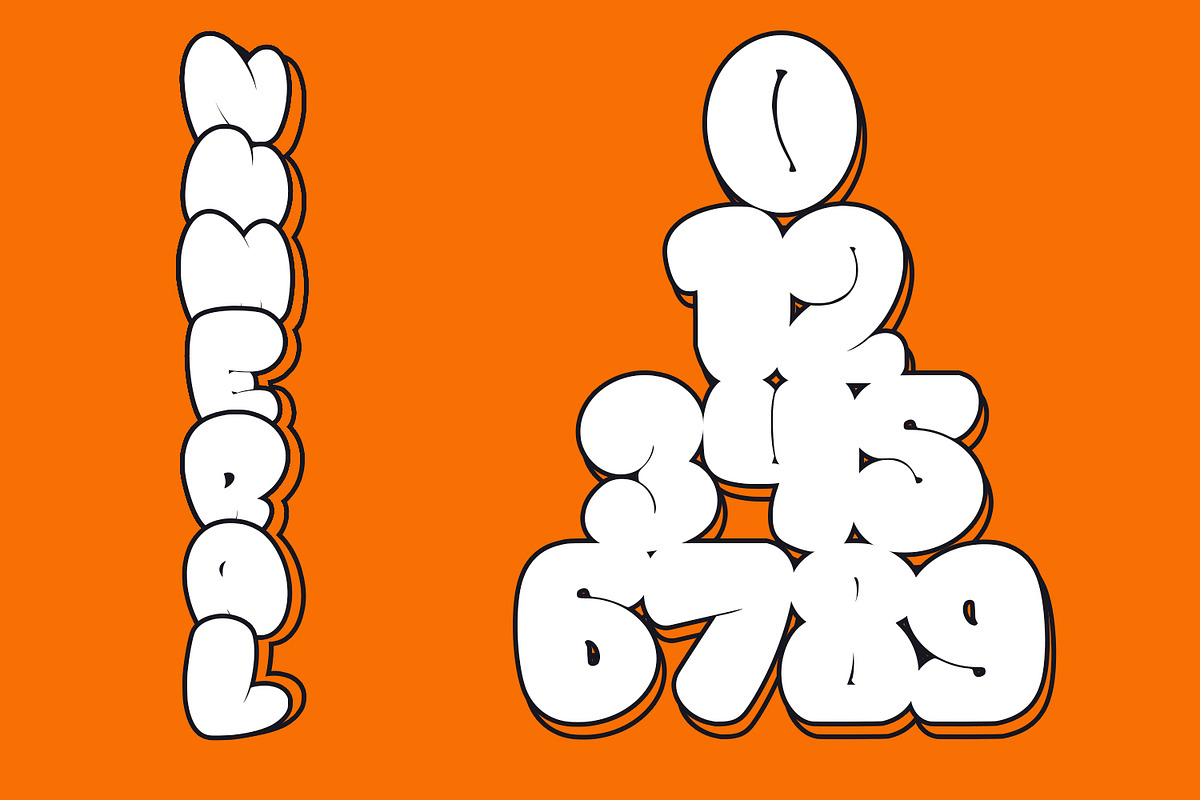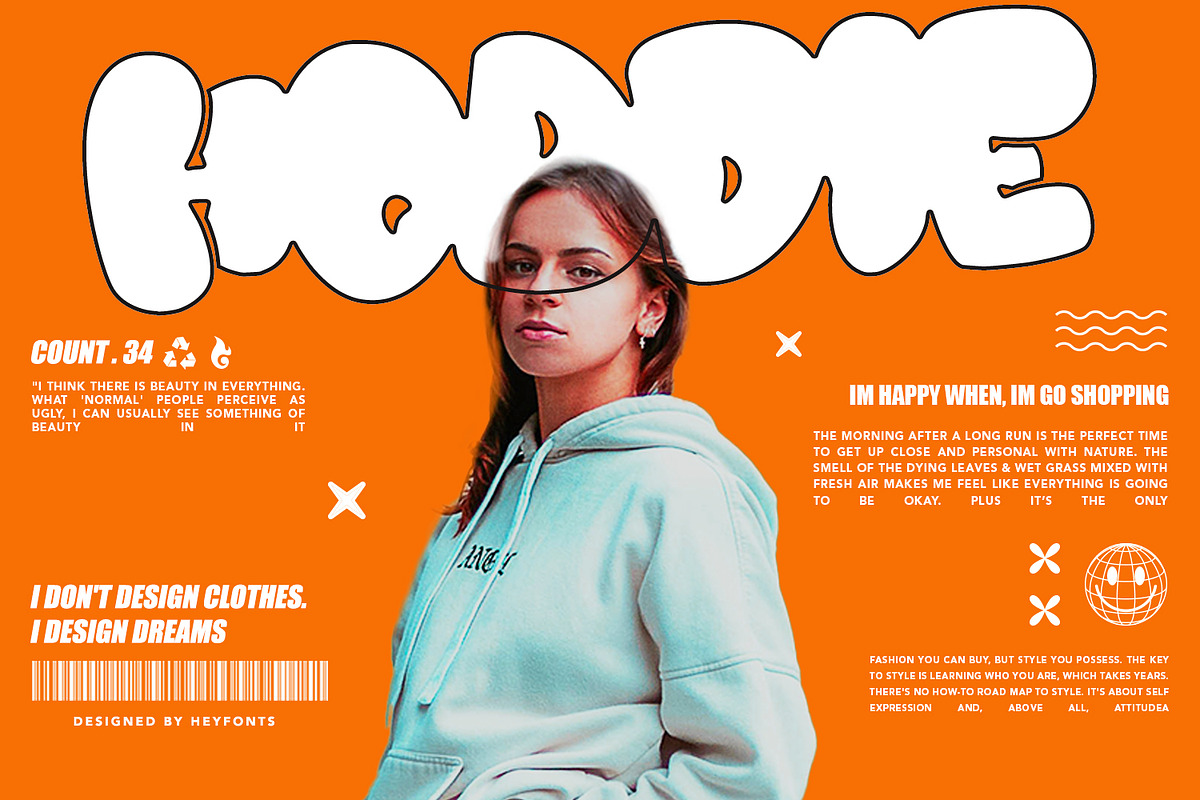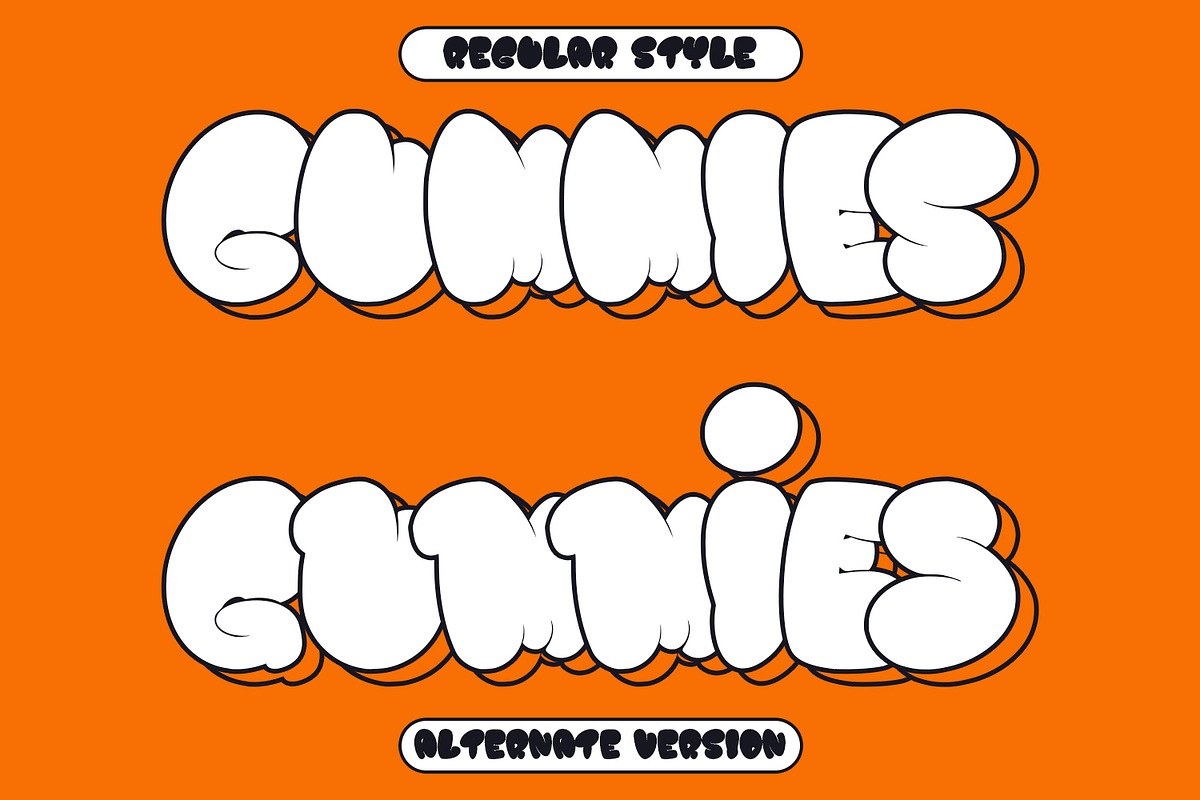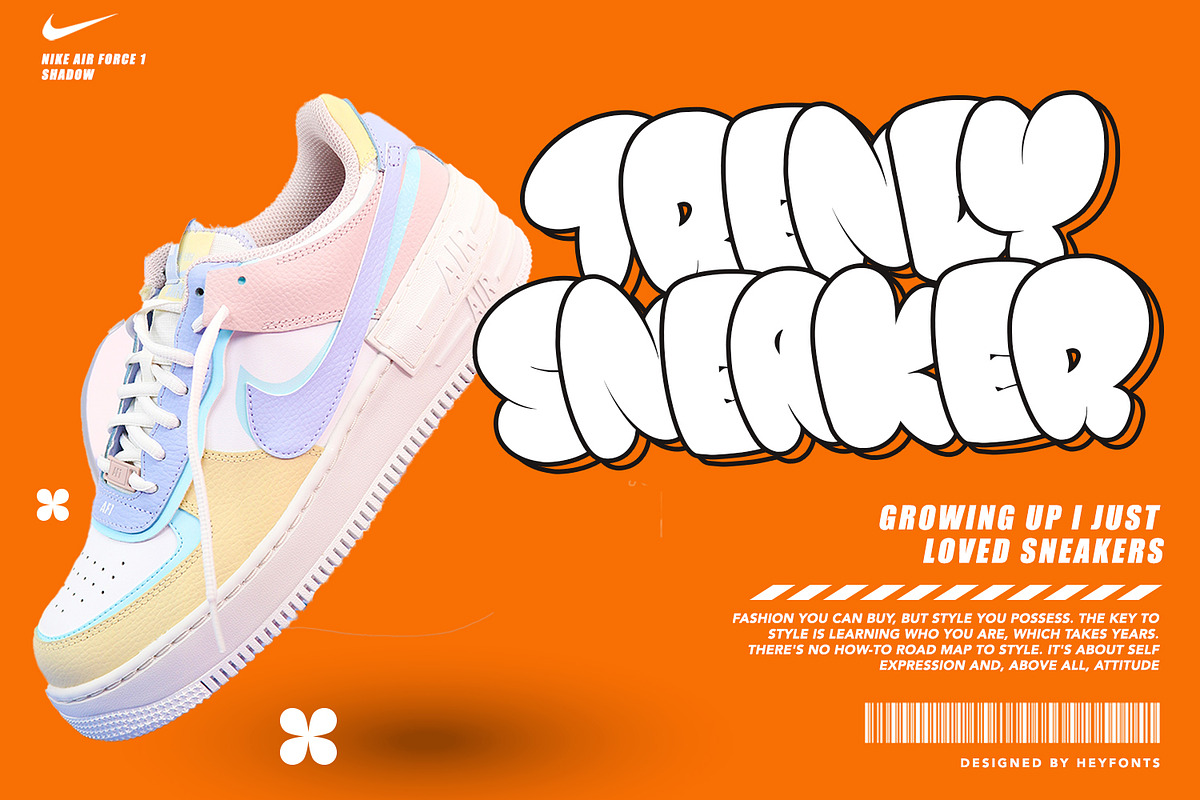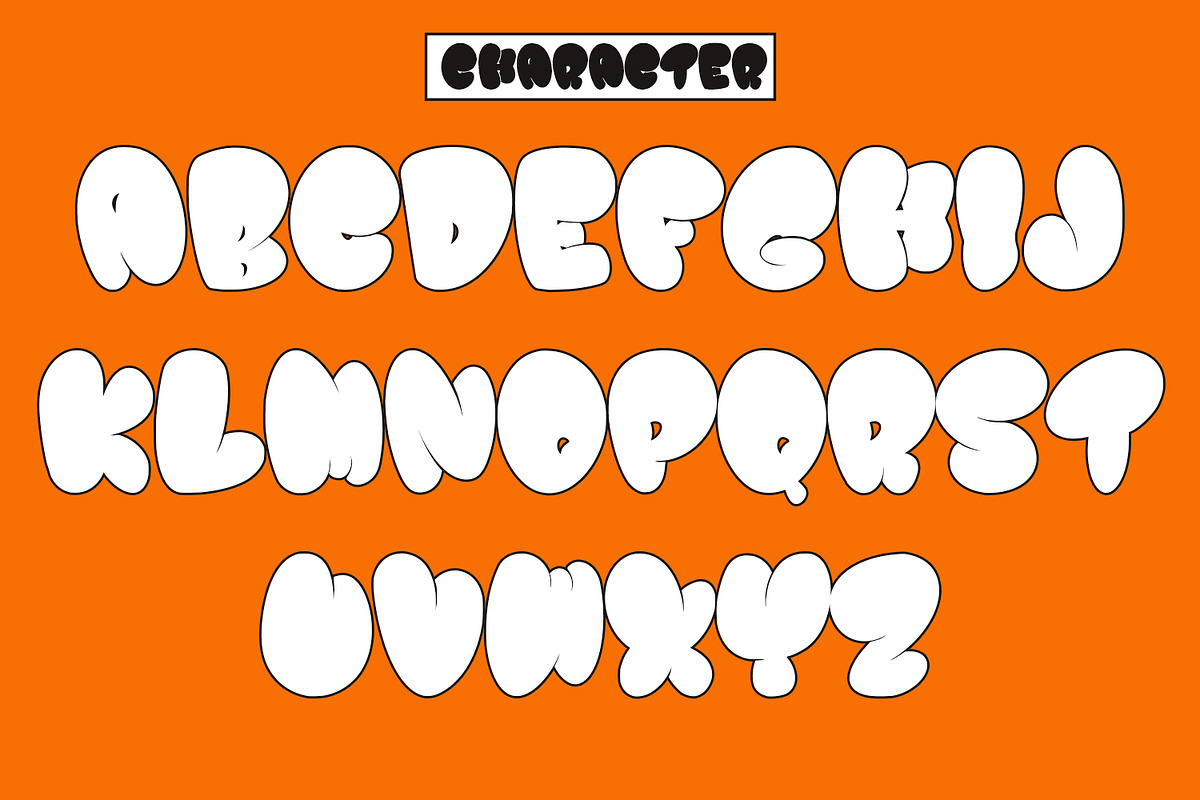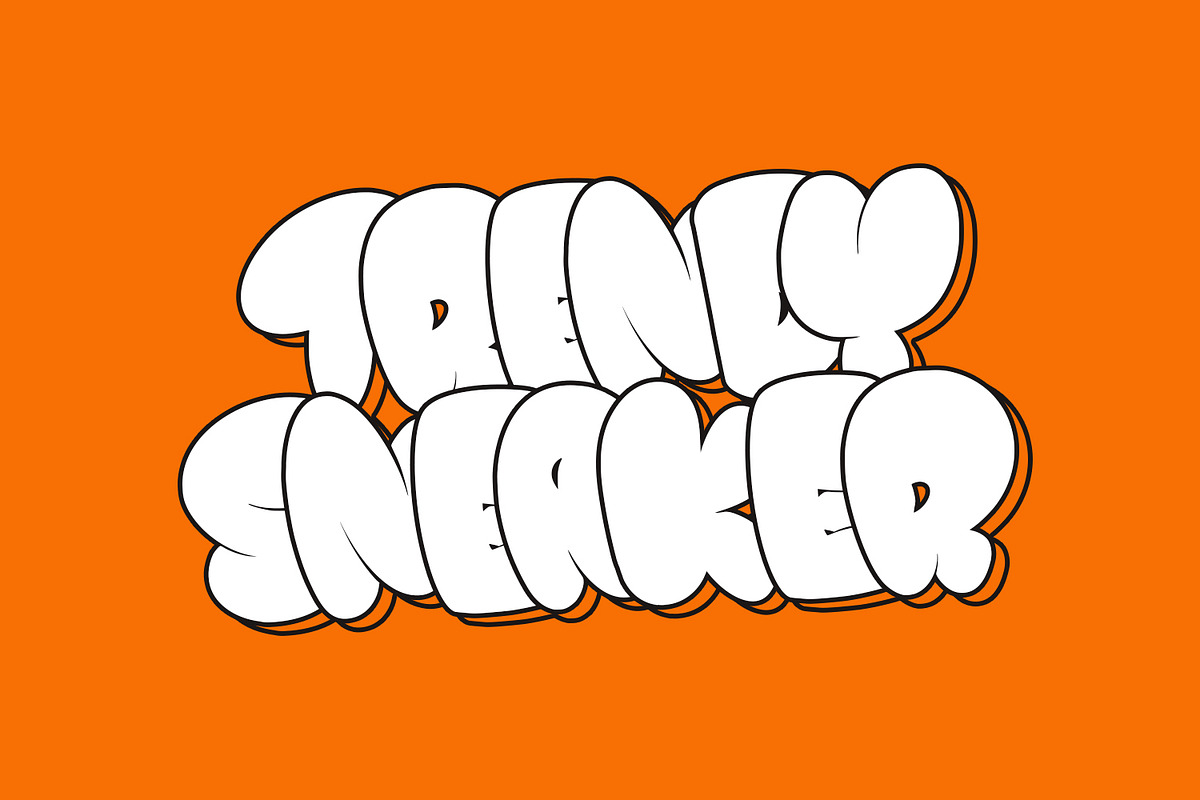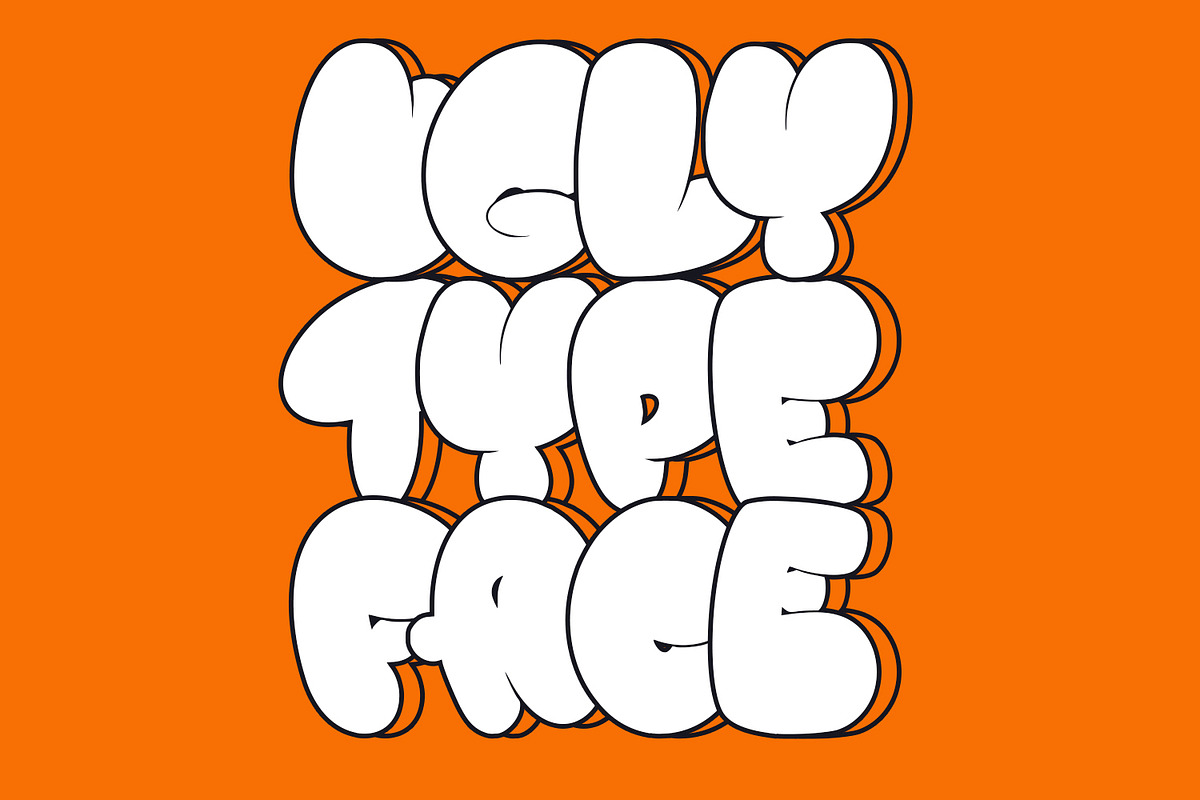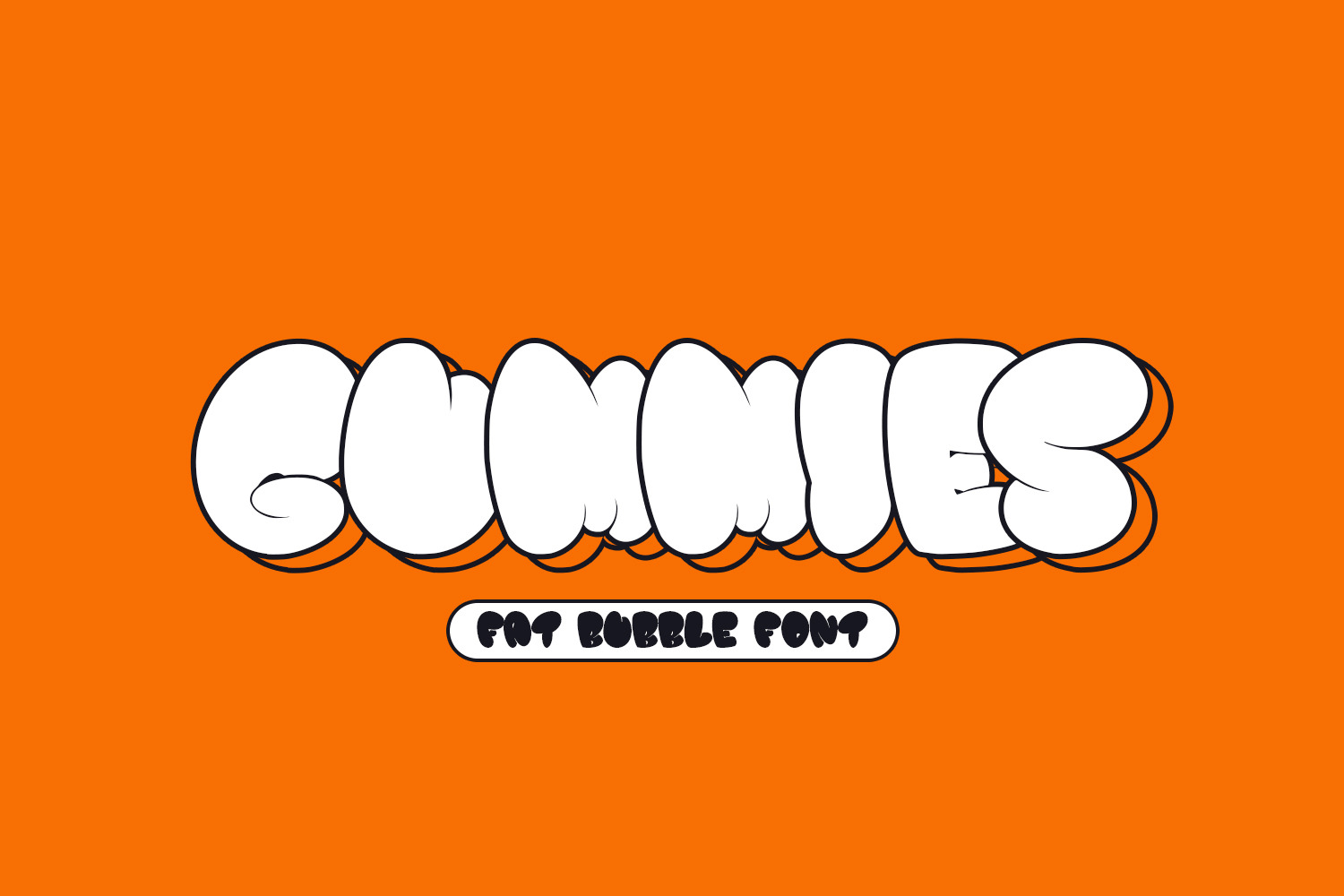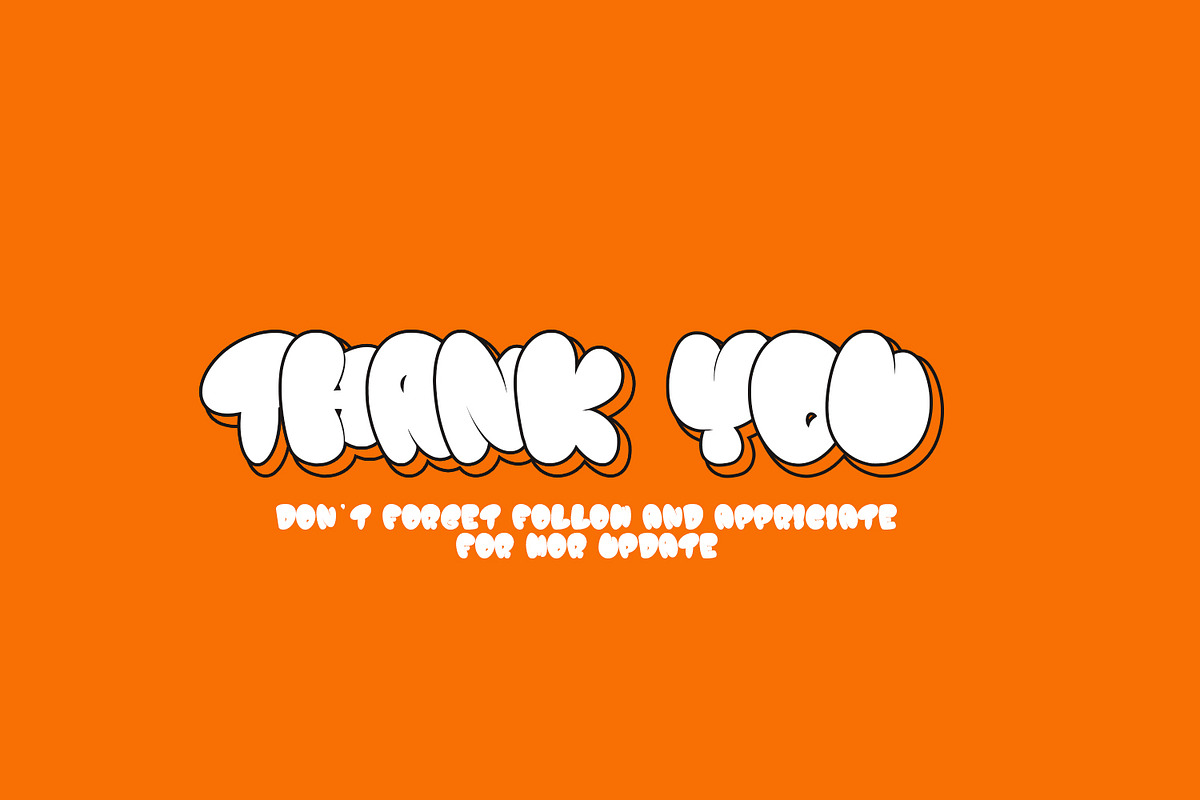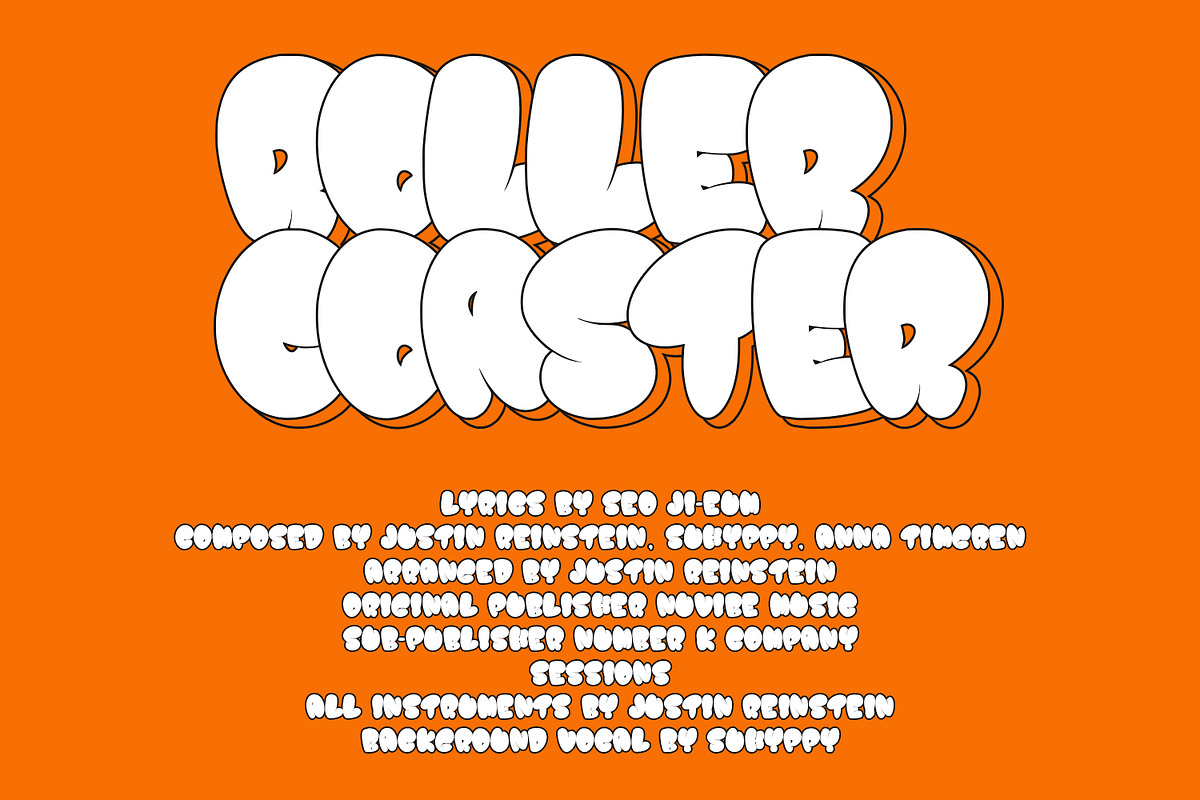
Gummies - Fat Bubble Font
Gummies - The fat bubble font is a stylish and playful typeface that features rounded and inflated letterforms, resembling bubbles. The letters are often chunky, with exaggerated curves and soft edges, giving them a plump and rounded appearance.
This type of font is popular for its fun and whimsical nature, making it suitable for designs targeting a young audience or those looking to create a lighthearted and energetic atmosphere. The thick and rounded letterforms give a sense of friendliness and approachability, adding a touch of playfulness to any text.
The fat bubble font is versatile and can be used in various design applications, such as logos, headlines, posters, invitations, stickers, or website headers. It adds a touch of personality and uniqueness to designs, helping them stand out and grab attention.
Overall, Gummies font is an eye-catching and cheerful typeface that captures the joy and energy of bubbles, making it a popular choice for designs that want to exude a sense of fun and playfulness.